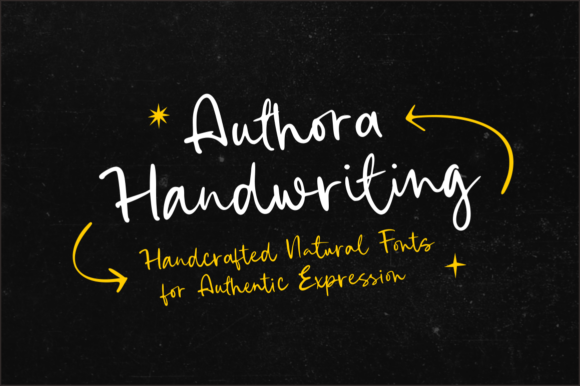
Introducing Authora Handwriting Font: The Ultimate Script Font for Authentic Handwritten Text
In the world of typography, a well-crafted font can make all the difference in the success of a design project. For those seeking to add a personal touch and authenticity to their creations, look no further than Authora Handwriting Font. This captivating script font is meticulously crafted to emulate authentic handwriting, bringing a unique charm and character to any project.
The Inspiration Behind Authora Handwriting
The Authora Handwriting Font is designed to replicate the natural flow and elegance of genuine handwritten text. With its intricate ligatures and carefully crafted letterforms, this font captures the essence of handwritten writing, making it perfect for projects that demand a personal touch.
The inspiration behind Authora Handwriting lies in the art of traditional handwriting. The font’s creator aimed to distill the essence of handwritten text into a digital format, making it easily accessible for designers and artists to use in their projects.
Key Features of Authora Handwriting Font
- Natural Flow: Authora Handwriting Font boasts a natural flow that mimics authentic handwriting. Each letter is carefully crafted to create a sense of movement and fluidity.
- Intricate Ligatures: The font features intricate ligatures that add a touch of elegance and sophistication to any project.
- Authentic Handwritten Text: Authora Handwriting Font is designed to replicate the look and feel of genuine handwritten text, making it perfect for projects that require a personal touch.
- Multilingual Support: The font supports multiple languages, making it a versatile choice for designers and artists working on international projects.
Use Cases for Authora Handwriting Font
Authora Handwriting Font is an excellent choice for a wide range of design projects, including:
- Invitations: Add a touch of elegance and sophistication to your wedding invitations, birthday invitations, or any other special occasion.
- Branding: Use Authora Handwriting Font to create a unique and memorable brand identity that stands out from the crowd.
- Editorial Designs: Add a personal touch to your editorial designs, such as magazine articles, blog posts, or book covers.
- Packaging: Use Authora Handwriting Font to create eye-catching packaging designs that showcase your brand’s personality.
Tips for Using Authora Handwriting Font Effectively
To get the most out of Authora Handwriting Font, follow these tips:
- Use it sparingly: While Authora Handwriting Font is beautiful, it can be overwhelming if used excessively. Use it sparingly to add a touch of elegance and sophistication to your design.
- Pair it with a sans-serif font: Pair Authora Handwriting Font with a sans-serif font to create a beautiful contrast and add visual interest to your design.
- Experiment with colors: Don’t be afraid to experiment with different colors to find the perfect match for your design.
The Benefits of Using Authora Handwriting Font
Using Authora Handwriting Font offers several benefits, including:
- Unique and Memorable: Authora Handwriting Font helps create unique and memorable designs that stand out from the crowd.
- Personal Touch: The font adds a personal touch to your designs, making them more relatable and engaging.
- Authenticity: Authora Handwriting Font captures the essence of genuine handwritten text, making it perfect for projects that require authenticity.
In conclusion, Authora Handwriting Font is a captivating script font that brings a unique charm and character to any design project. With its natural flow, intricate ligatures, and authentic handwritten text, this font is perfect for projects that demand a personal touch and authenticity. Whether you’re designing invitations, branding materials, or editorial designs, Authora Handwriting Font is an excellent choice.